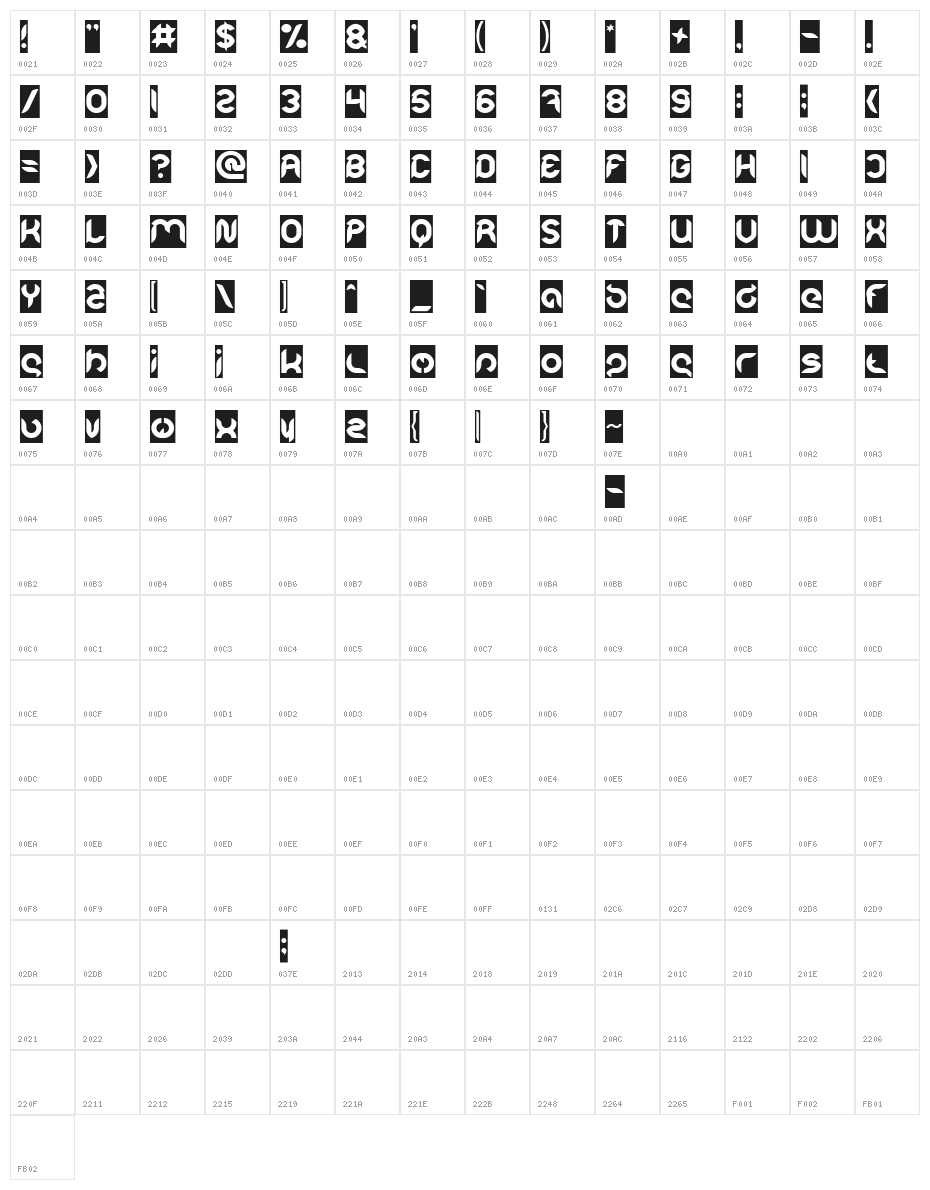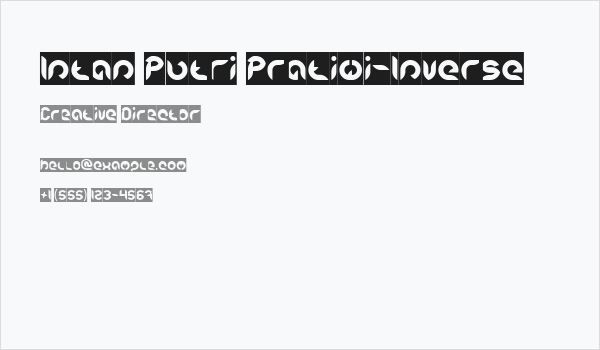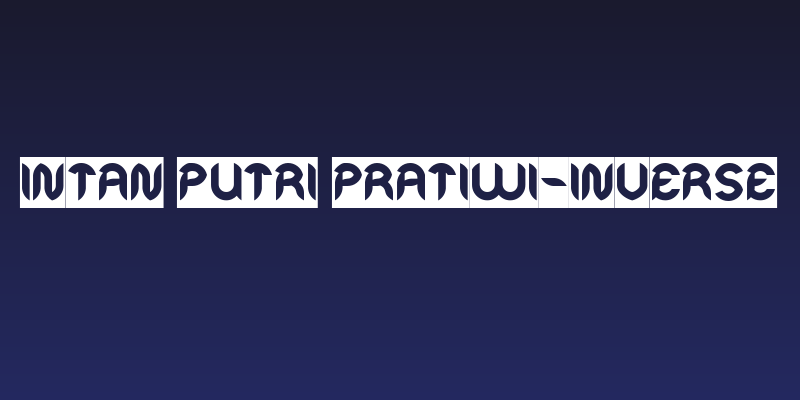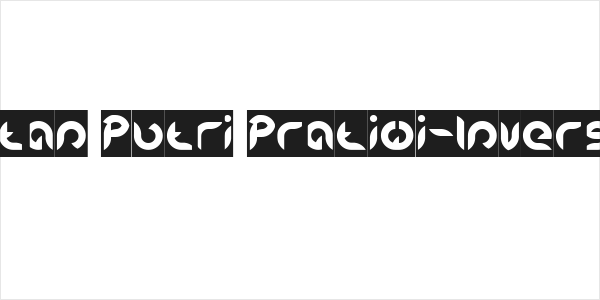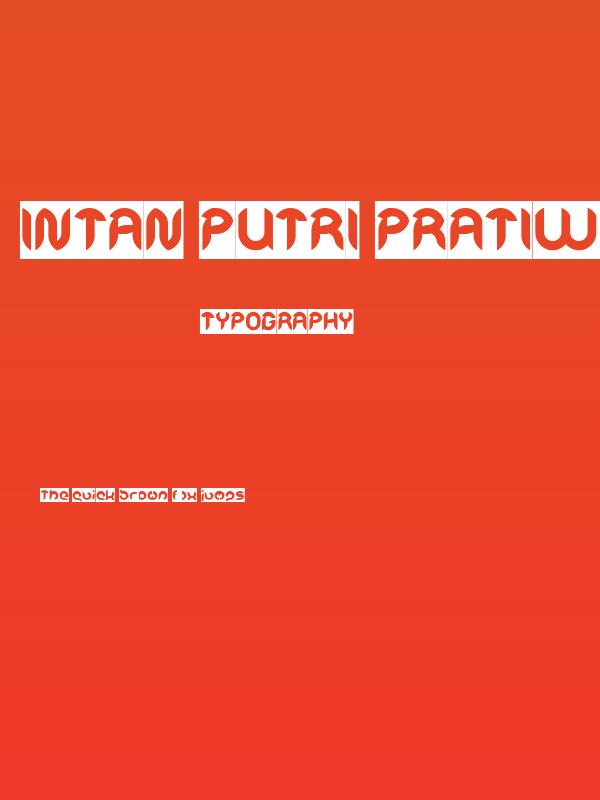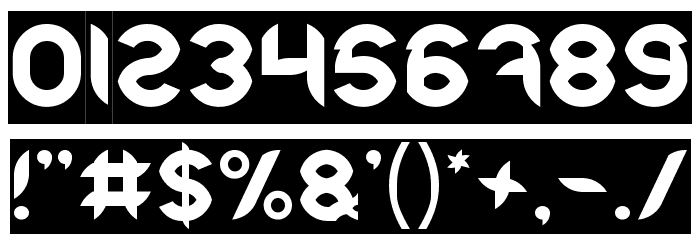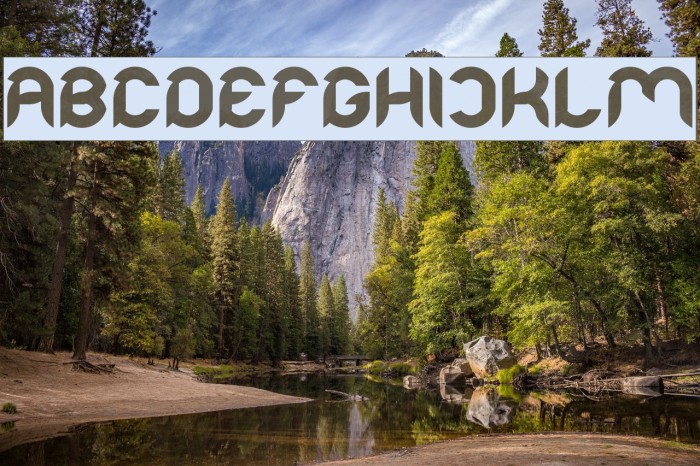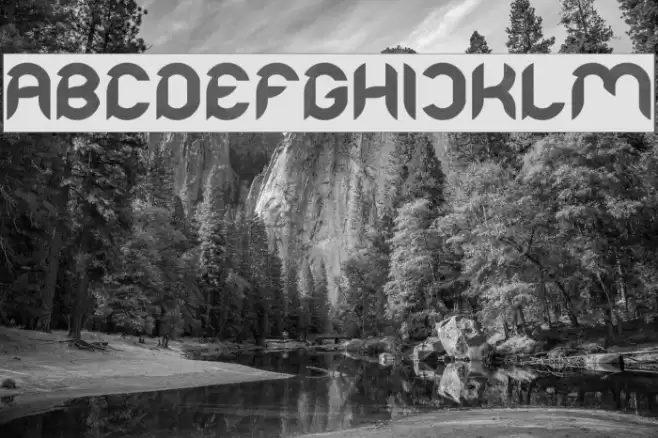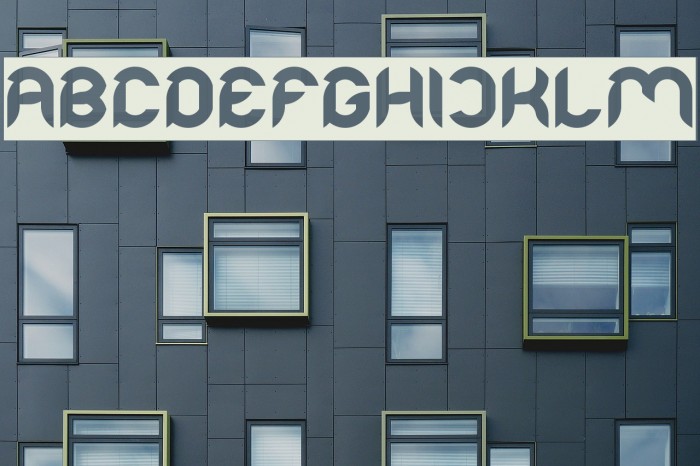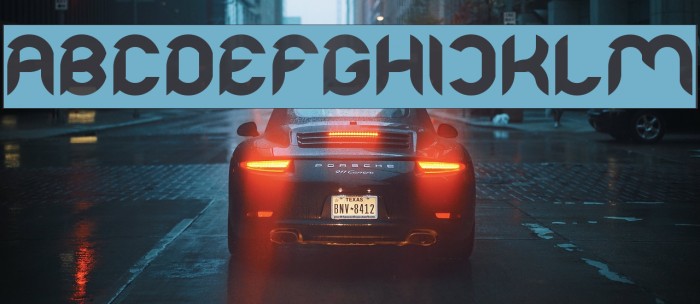
Intan Putri Pratiwi-Inverse Font
✎ Round
Intan Putri Pratiwi-Inverse Description
This font features a bold and modern design with a unique twist on traditional letterforms. Each character is crafted with a distinct geometric style, incorporating sharp angles and smooth curves that create a dynamic visual appeal. The uppercase and lowercase letters maintain a consistent aesthetic, while the numerals and special characters complement the overall design. The font's bold weight and high contrast make it stand out, ensuring readability and impact. Its distinctive style is suitable for projects that require a contemporary and eye-catching look.
| Proposed Projects | Ideal for branding, headlines, posters, and digital media that require a striking and modern appearance. |